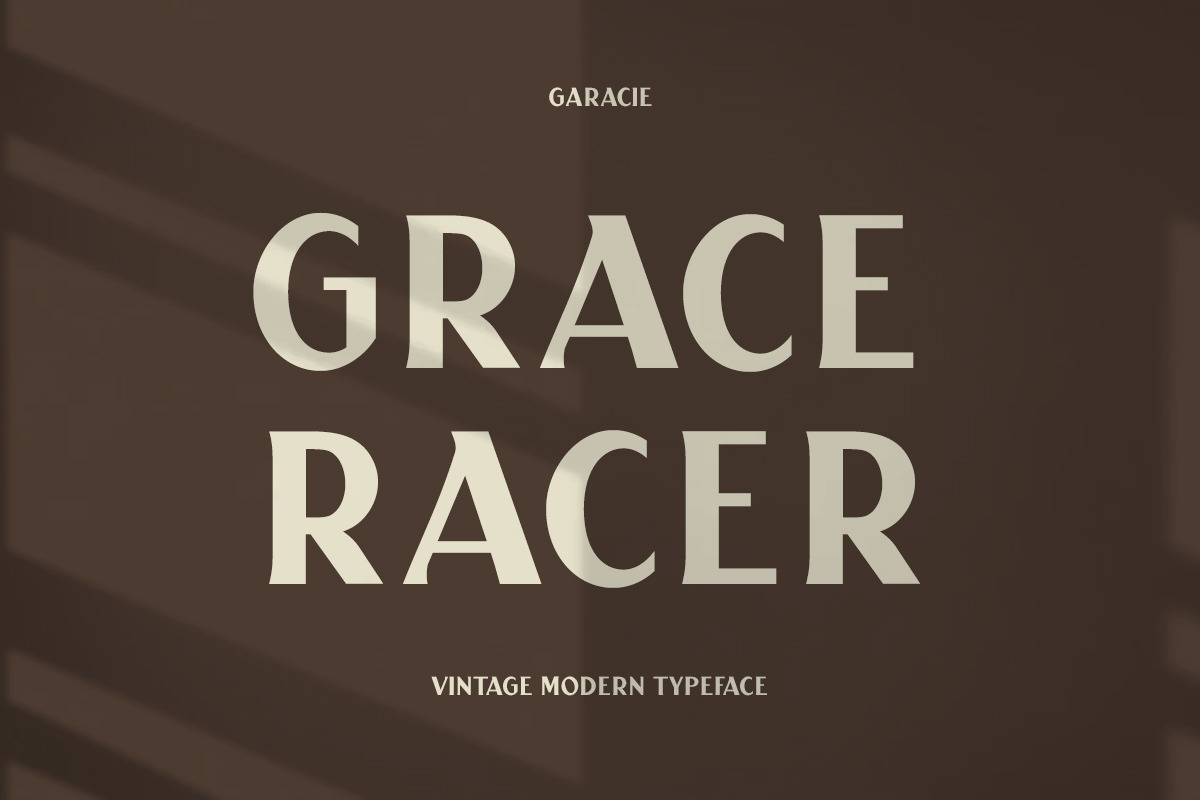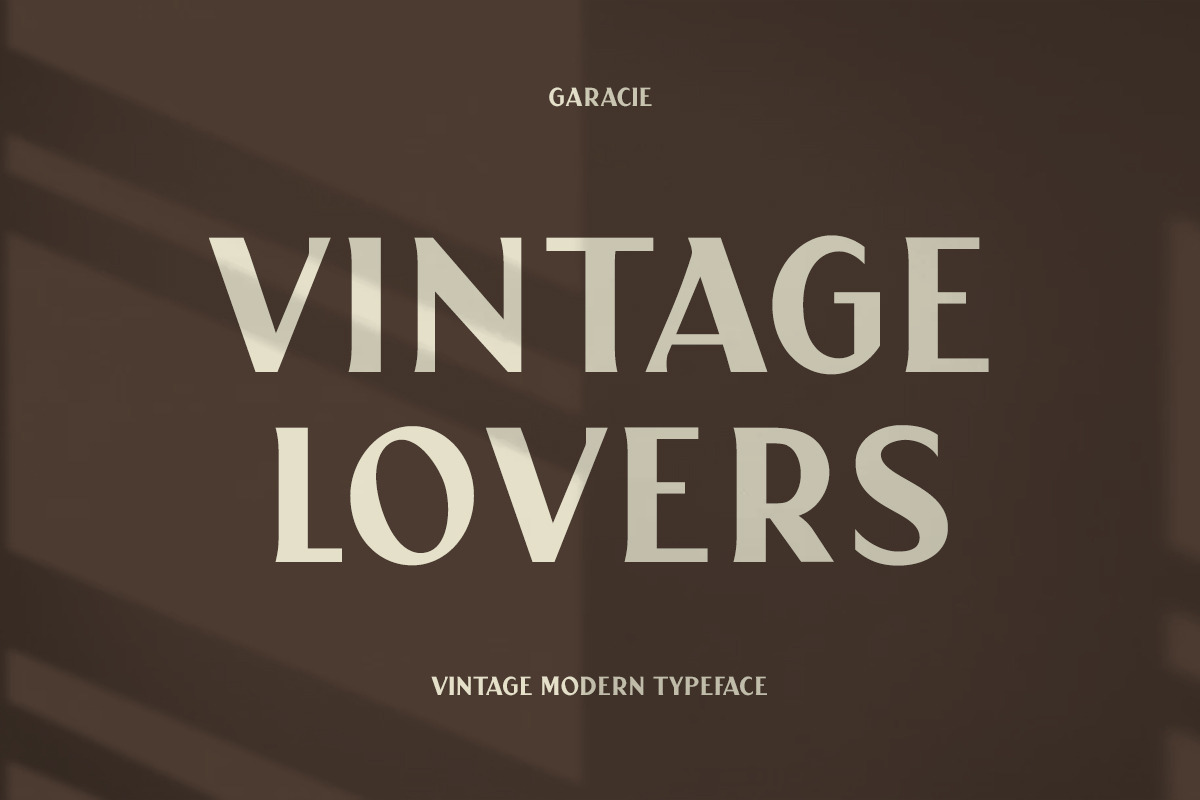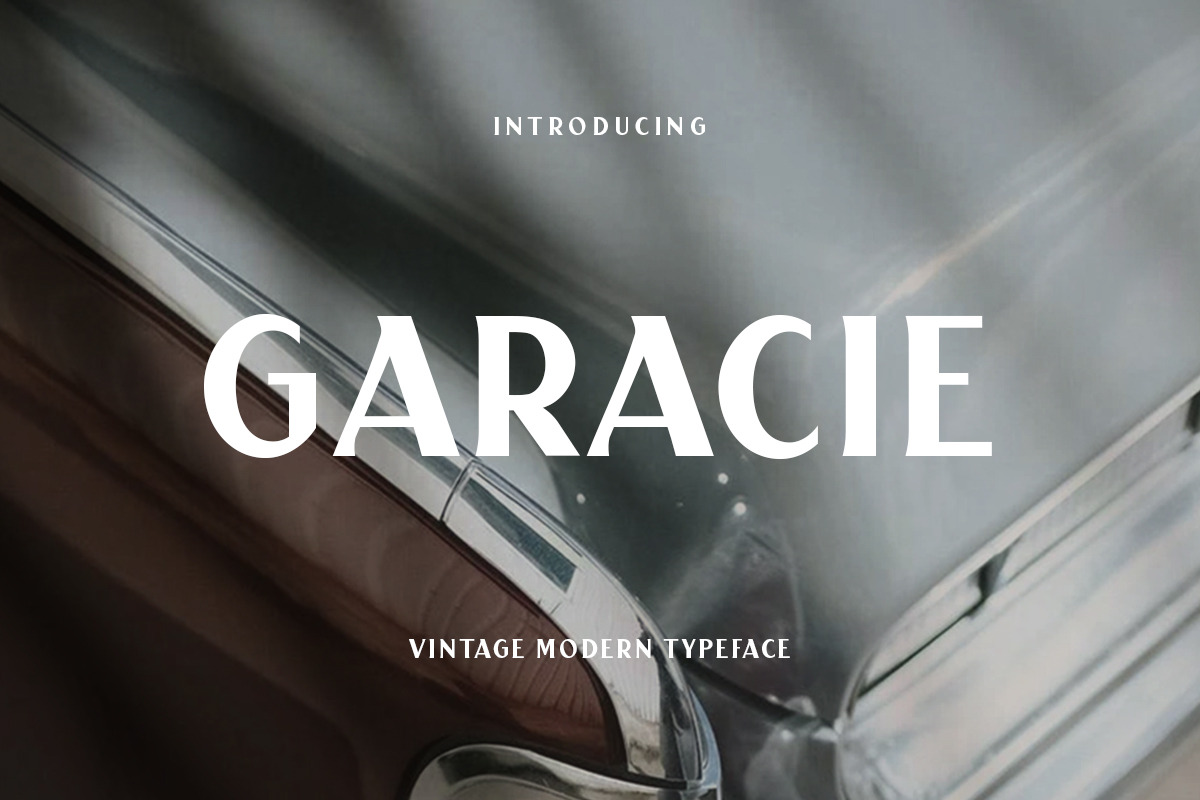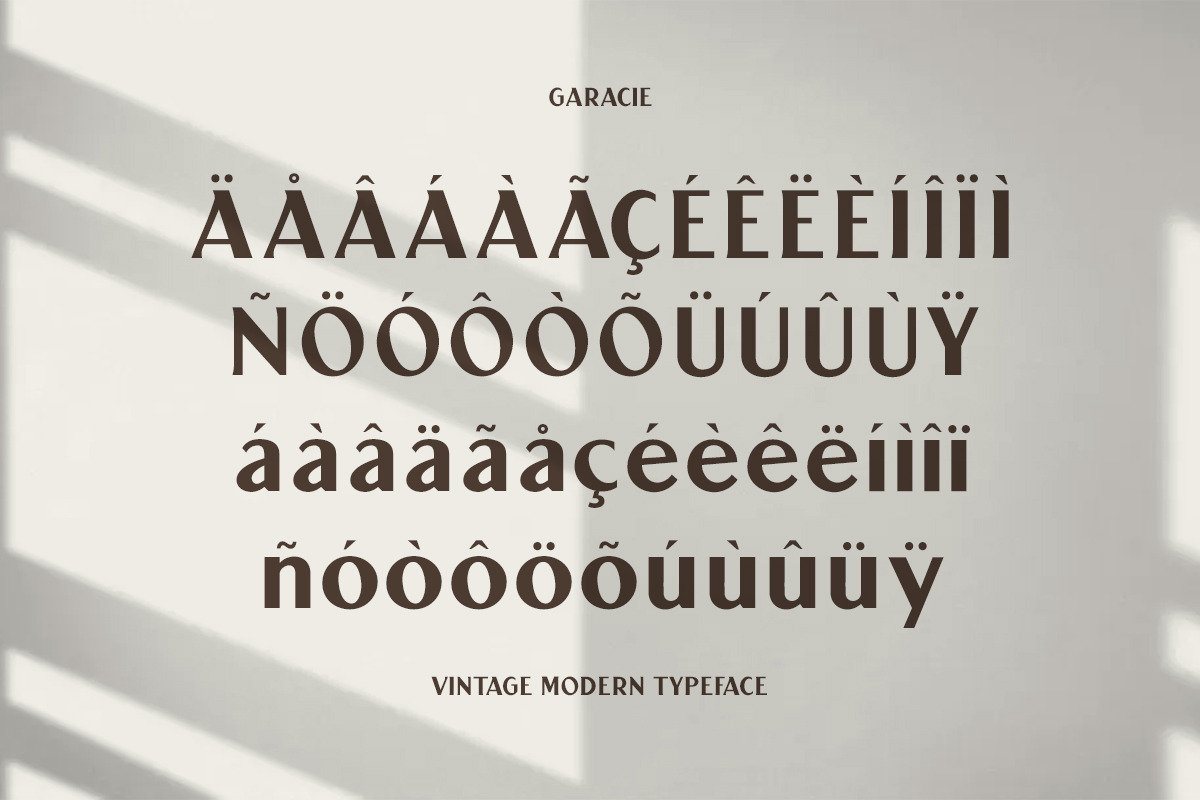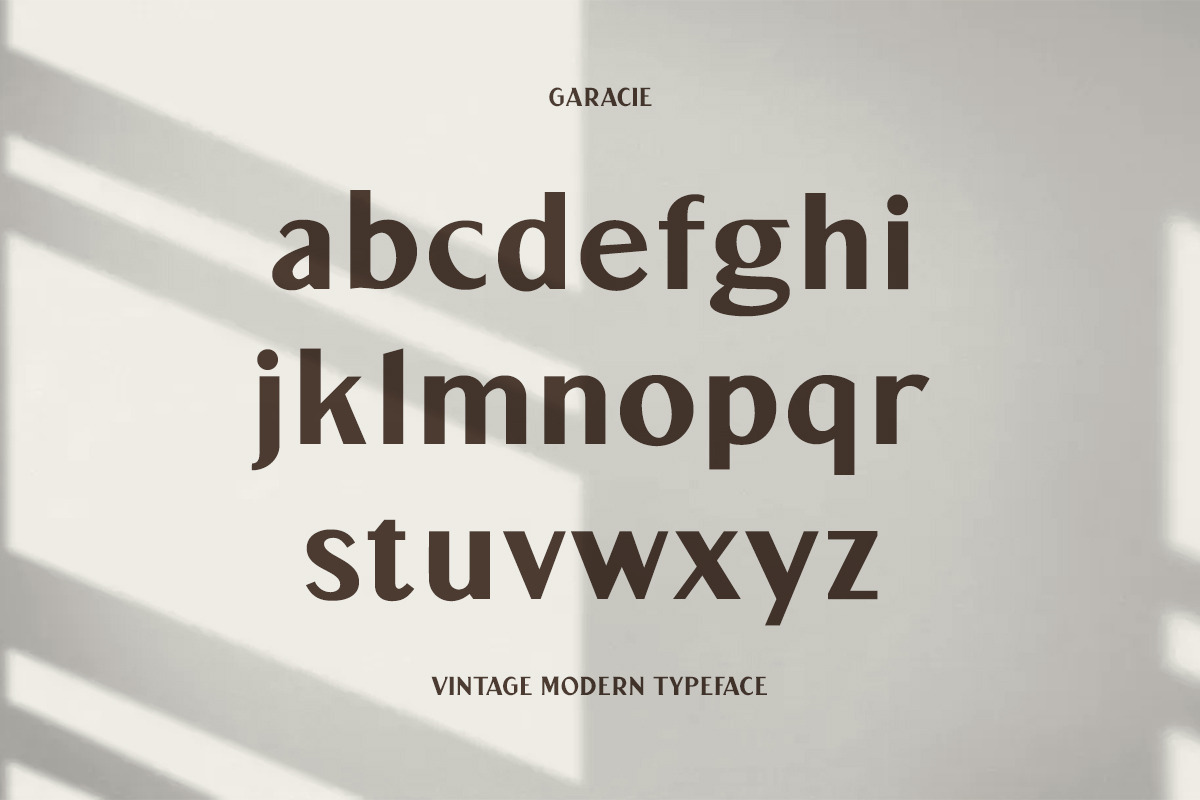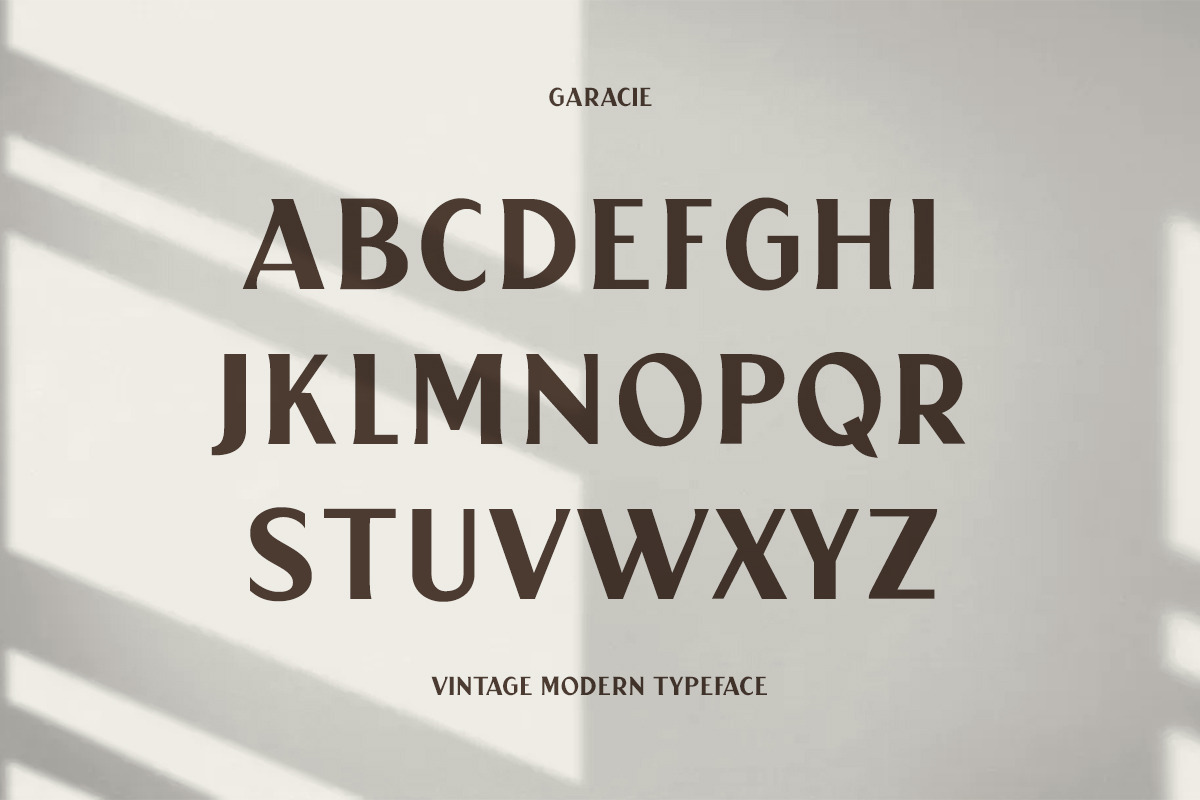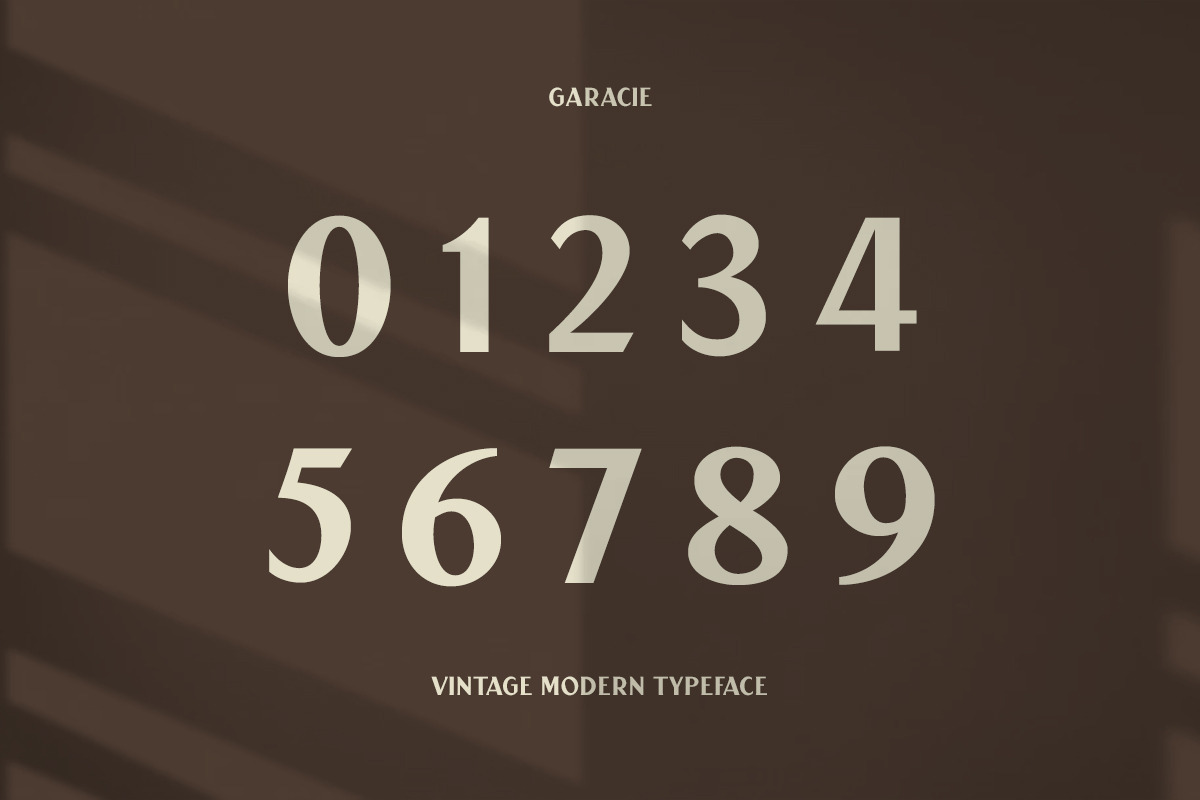
Garacie Vintage Modern Typeface
Are you a fan of Vintage and Modern styles? Good news
Introducing Garacie Vintage Modern Typeface Garacie is a unique, fun, and versatile Vintage Modern style font that supports other languages.
It's meant for graphic designers and typography professionals to get more done with style in mind! This font will go well with logos, headlines, titles, and minimal layouts.